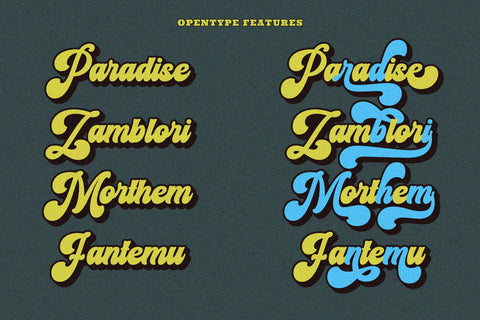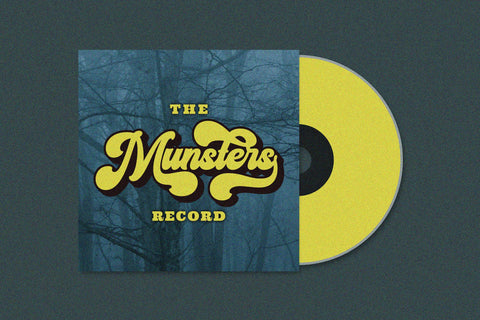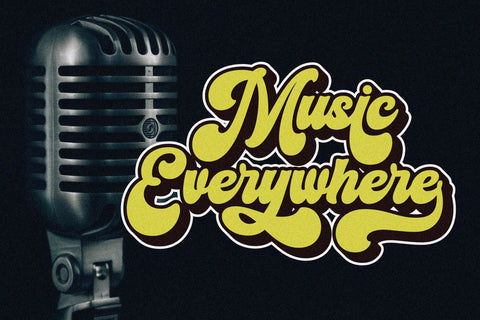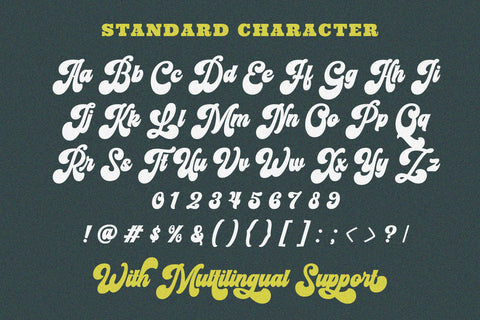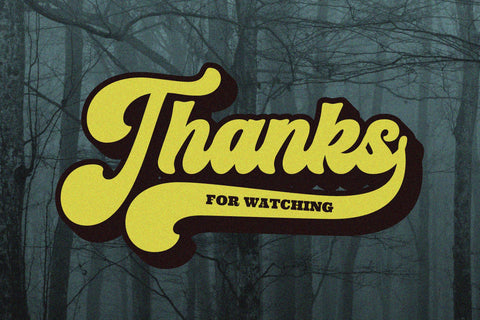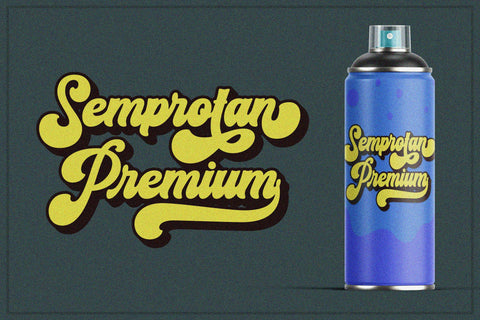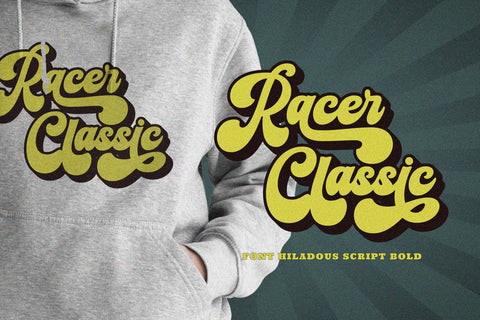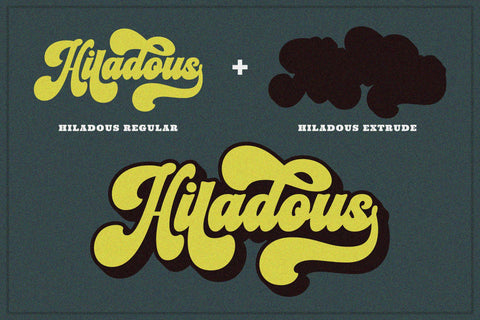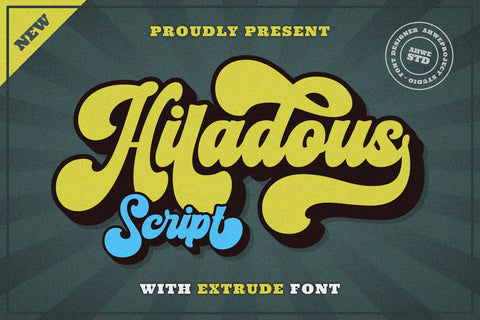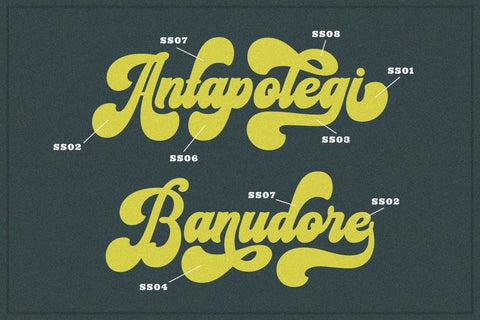
Hiladous - Bold and Retro Font
Hiladous is a bold and retro-styled handwritten font. This font reads as strong, confident, and dynamic, and can add tons of nostalgic character to your designs.